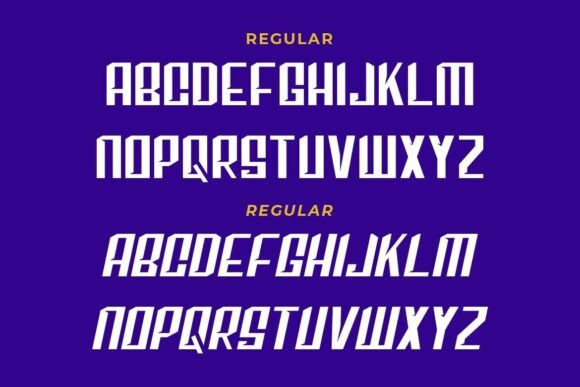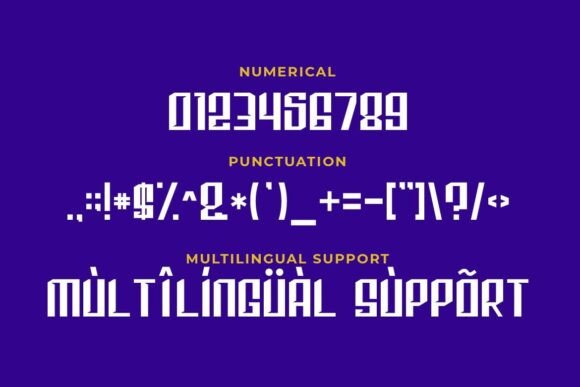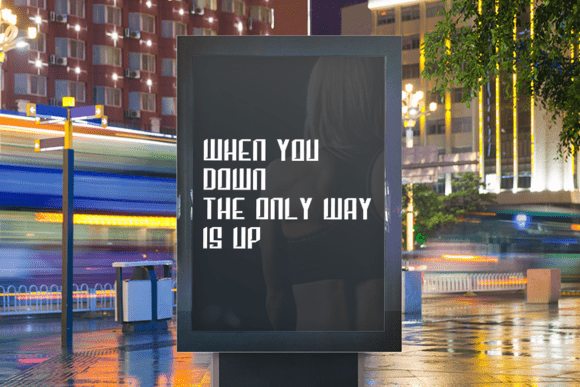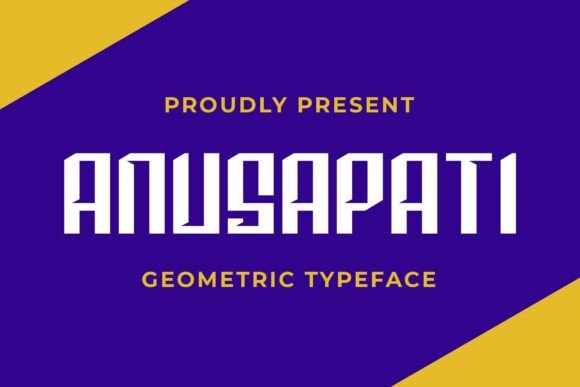
The Power of Anusapati Font: A Designer’s New Best Friend
I still remember the design project that led me to discover Anusapati Font. I was working on a branding campaign for a sports apparel company, and I needed a font that could convey strength, energy, and modernity. After hours of searching, I stumbled upon Anusapati, and it was love at first sight! 💡
This bold sans serif font has been a game-changer for my design projects, and I’m excited to share its awesomeness with you. In this article, we’ll dive into the world of Anusapati, exploring its features, uses, and some clever tips and tricks.
• 💪 **Confidence-boosting**: Anusapati exudes confidence and strength, making it perfect for bold statements and eye-catching headlines.
• 🔍 **Clean and modern**: Its sleek lines and structure ensure a professional look that’s perfect for tech, sports, and editorial layouts.
• 📈 **Versatile**: Use it for branding, posters, or digital media – Anusapati adapts seamlessly to various design contexts.
• 👍 **Easy to read**: Despite its bold nature, Anusapati remains surprisingly legible, even at smaller font sizes.
• ⚠️ **Limited italic options**: Anusapati’s italic variations are somewhat limited, which might not be ideal for designs requiring more expressive typography.
• 😐 **Not perfect for body text**: While it’s legible, Anusapati’s bold personality makes it better suited for headlines and titles rather than lengthy paragraphs.
Anusapati’s creation is rooted in the desire to craft a font that embodies strength, legacy, and bold expression. Its designer aimed to merge traditional typography principles with modern sensibilities, resulting in a unique and confident typeface.
Q: What makes Anusapati suitable for sports branding?
A: Anusapati’s bold and energetic personality makes it an excellent fit for sports branding, conveying a sense of strength and dynamism.
Q: Can I use Anusapati for body text?
A: While Anusapati is legible, its bold nature makes it better suited for headlines and titles. For body text, consider a complementary font with better readability.
Q: Does Anusapati support OpenType features?
A: Yes, Anusapati supports OpenType features, including stylistic alternates and glyphs, allowing for creative and customizable typography.
Q: Is Anusapati suitable for digital media?
A: Absolutely! Anusapati’s clean and modern design ensures it looks great in digital media, from websites to social media graphics.